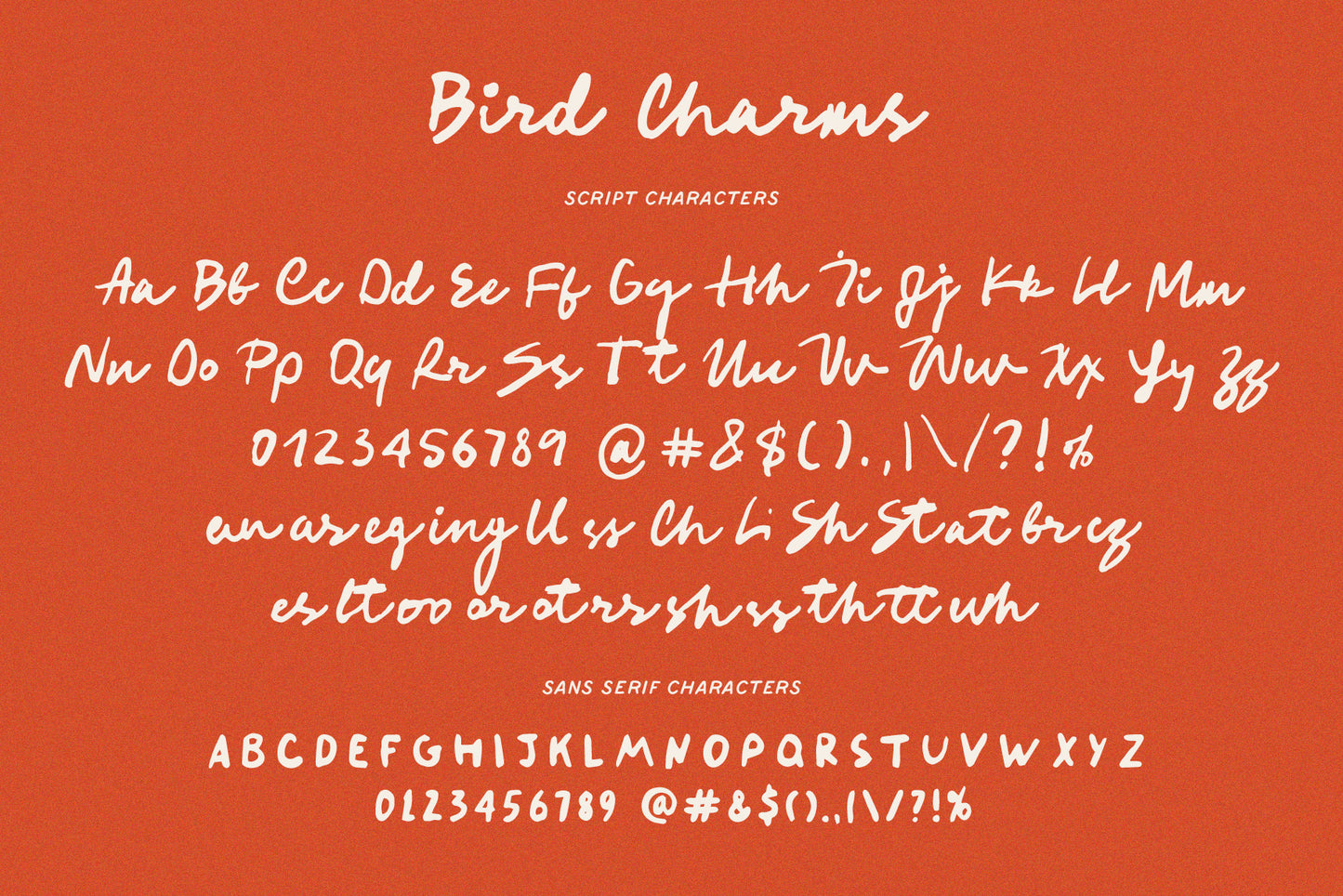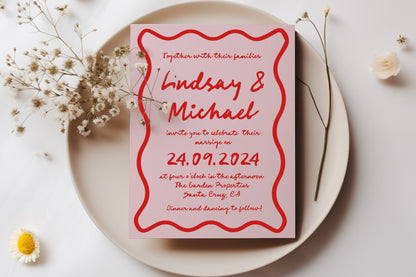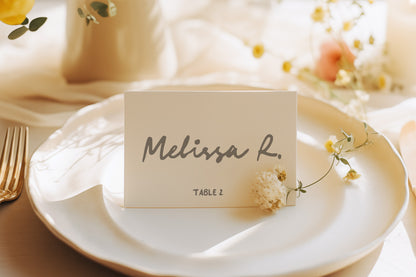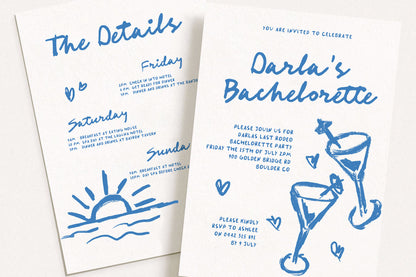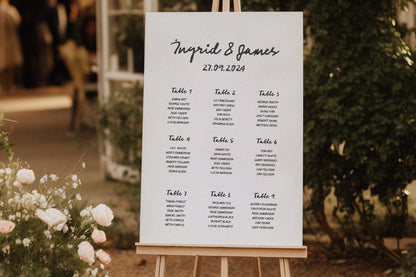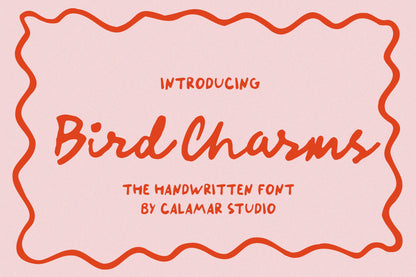
Bird Charms Handwritten Font Pair
It will look great for wedding invitations, menu, modern wall arts, instagram posts, quotes, branding. Bird Charms includes full set of Uppercase and Lowercase Basic Characters, Numbers, Punctuation and ligatures.